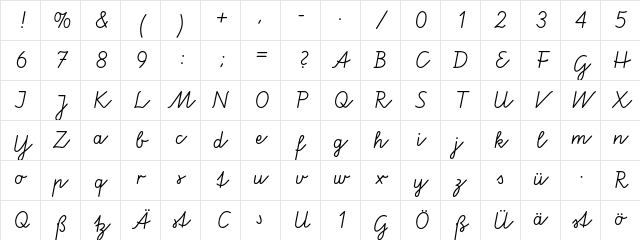
Vereinfachte Lateinische Ausgangsschrift Two BQ is a composed and adaptable typeface that performs quietly and consistently across a wide range of design contexts.